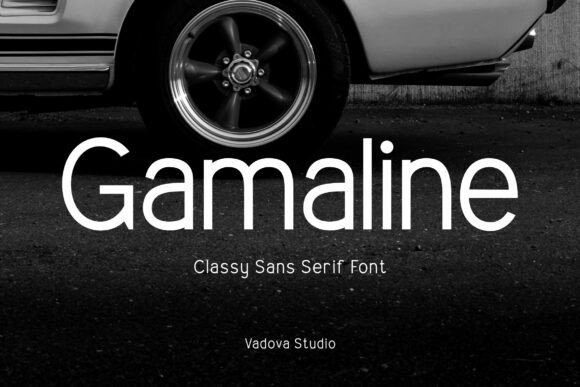
Gamaline: A Classy Sans Serif Typeface for Elegant Branding
Let me take you back to a recent project: a visual refresh for a local artisanal café. I was staring at a blank brand board, the cursor blinking impatiently. The goal was to elevate their identity from casual corner spot to a more refined, Instagram-ready brand. I needed a font that could carry that sophistication without feeling stuffy. That’s when I opened up my font library and landed on Gamaline — a classy sans serif typeface that blends modern simplicity with a refined and elegant tone.
Gamaline for Logo Design and Brand Identity
Right off the bat, I dropped Gamaline into the logo concept. It immediately gave the brand a subtle sense of luxury. The clean lines and smooth curves of this sans serif font struck a perfect balance between approachable and upscale. I tested it in all caps for a wordmark and loved how the balanced spacing kept the letters from feeling cramped. This is a font that works well when you want to imply quality without shouting it.
Compared to some of the more geometric sans serif fonts I’ve used, Gamaline feels more human — not too rigid, not too playful. It’s got that modern minimalism that’s so popular in 2024, but with a softness that makes it feel warm and trustworthy. It’s a great choice for brands that want to communicate both innovation and care, like wellness studios, boutique hotels, or curated online shops.
Gamaline in Packaging Design and Product Labeling
Next, I moved into packaging mockups. The client wanted a new line of cold brew cans and custom coffee bags. Gamaline held up beautifully in both applications. I used it at larger sizes on the can labels, where its smooth curves and elegant structure gave the product a boutique feel. On the coffee bags, I tested it in a smaller size for secondary text and found it still readable, though I’d suggest sticking to medium to large sizes for optimal clarity.
If you're working on food packaging, skincare labels, or handmade product tags, Gamaline could be a strong contender. It reads well in print, especially with a clean background. Just be mindful of very small print or low-contrast color combinations — this font shines best when it has room to breathe.
Using Gamaline for Web and Social Media Design
I dropped the font into a website header mockup and was instantly impressed. Gamaline’s clean lines translated well on screen, especially in bold weights. I used it for the hero section headline and paired it with a simpler sans serif font for body copy. The contrast helped establish visual hierarchy without clashing. It also looked great on mobile views — a must for any modern web font.
For social media layouts, I tested it in a few Instagram story templates. In those fast-paced visuals, Gamaline stood out as a strong accent font. It worked especially well for short phrases and headlines — like “New Season Menu” or “Limited Time Offer.” Just don’t try to use it for long captions or body text in Stories; it’s more of a supporting typeface in that context.
Pairing Gamaline with Other Fonts
Font pairing is where Gamaline really starts to shine. As a sans serif, it plays well with serif fonts for contrast. I paired it with a light serif for a café menu layout and the combination felt both modern and classic. For a more minimalist look, I used it alongside a neutral sans serif font and found the result to be clean and cohesive.
If you're designing a brand system, Gamaline can easily be the headline or logo font while a simpler, more neutral font carries the body text. It’s also a great candidate for pairing with a script font if you want to add a touch of personality to a wedding invitation or boutique brand identity.
What Gamaline Is Best (and Not Best) For
After testing Gamaline across a full brand system — from logo to packaging to website — I’d confidently say it’s best used as a display font, headline font, or logo font. Its elegant structure and modern simplicity make it ideal for branding projects that aim to feel upscale but not over the top.
That said, it’s not the best choice for long-form body text or small-size print. While it’s readable, it’s not optimized for extended reading. Similarly, if you’re working on formal corporate branding or legal documents, you might want to go with a more traditional serif font. Gamaline is more of a lifestyle, creative, or boutique brand kind of font.